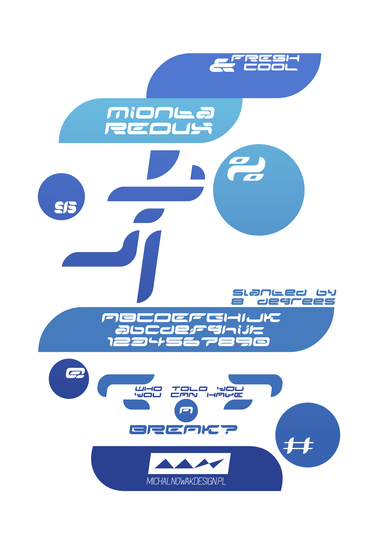
• After so many years, thanks to the amazing nudge feature it's been finally possible for me to recreate Mionta, my 2010 SportsComp entry, the way it should be. No awkward faux-Bézier this time around! It was very fun and a bit challenging to arrange all the bricks together so that they form 16 times smaller versions of the original characters. I did alter some letters and characters however. The ampersand was especially ugly in the original version. I also changed the look of the period (as well as the dots in colon and semicolon respectively). The positioning of left and right quotation marks was my conscious choice, it's a bit more aesthetically appealing to me that way. Double quotation marks are also sort of more ornamental and can serve a purely decorative purpose (this is also why "<" and ">" look the way they look - similar idea). And the percent sign, I love it so much that I think I'm going to marry it. Due to FontStruct's limitations, diagonal lines in K and N couldn't be preserved. Also, tracking isn't as tight, because we can't go below -1, but I think it's a good thing in this case. Just like before - make sure to try out fake italics! More fonts to come in very near future. Changelog: - minor corrections - & was still a little bit off - bar in lowercase t is now a bit raised ^and that renders the sample picture outdated, fantastic.